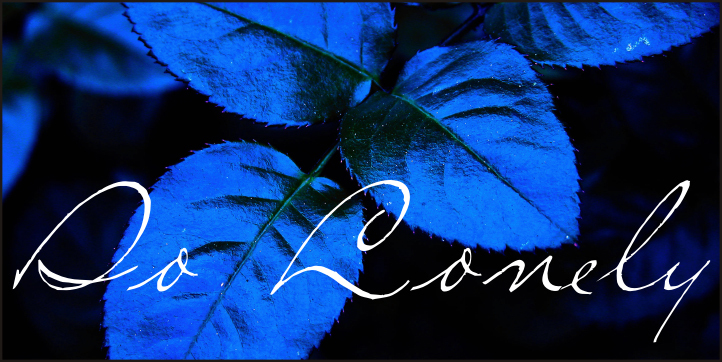
So Lonely by Paulo W. is a free calligraphic script with sweeping, sharply contrasted strokes and the loose scale of an oversized signature. Long loops, abrupt changes in pressure, and uneven connections give the lettering a restless, fashion-forward edge.
A fragrance campaign could use its elongated silhouettes for a dramatic wordmark, with beauty packaging and boutique branding drawing on the same tension. It is most convincing when a name needs to feel personal, extravagant, and deliberately untamed.
So Lonely